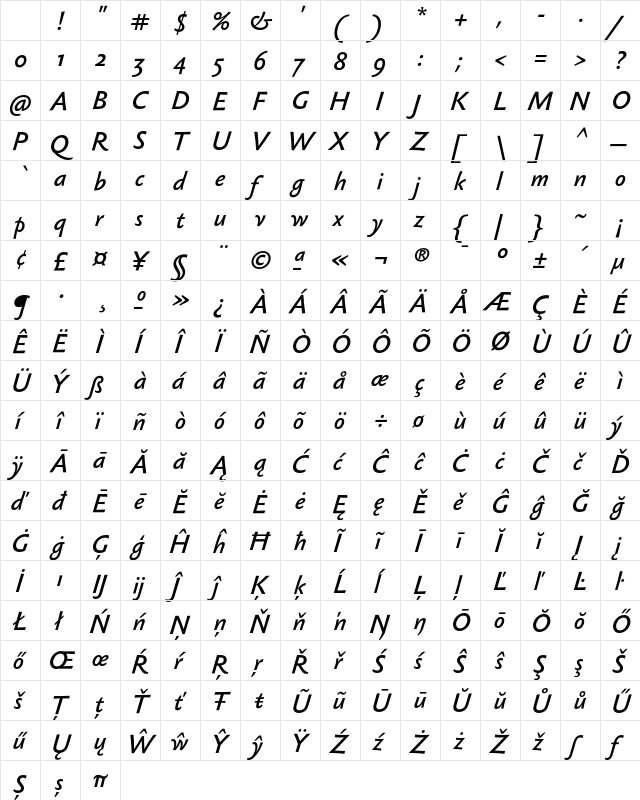
Complete Sebastian Light Light Bold Italic glyph index. Displaying only characters natively supported by Sebastian Light Light Bold Italic font.
Sebastian Light is a composed and adaptable typeface that performs quietly and consistently across a wide range of design contexts. The slanted form adds forward momentum and visual energy. Its bold stroke weight gives it real presence on the page.
Pro Tip: Use Sebastian Light for emphasis, pull quotes, and subheadings where its slanted energy can add rhythm to the layout.